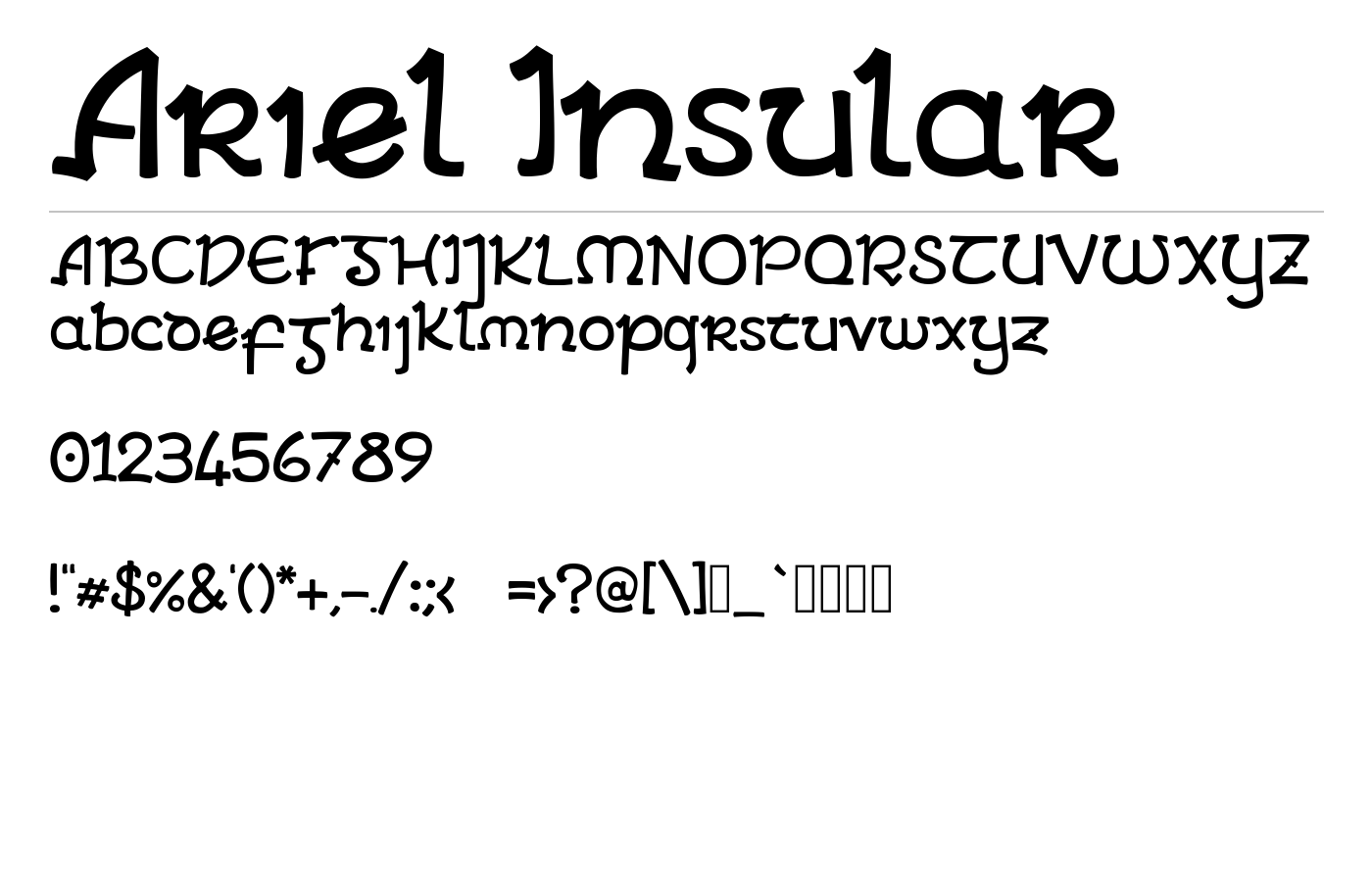
Ariel Insular is a decorative serif font with a quirky and playful character, featuring irregular, calligraphic strokes and a slightly condensed structure. Its distinctive letterforms, with sharp yet organic curves and unique terminals, evoke a whimsical, handcrafted feel that suits creative projects looking for personality and charm. This font works well for titles, branding, and artistic designs where a lively, storytelling vibe is desired.
Ariel Insular Font